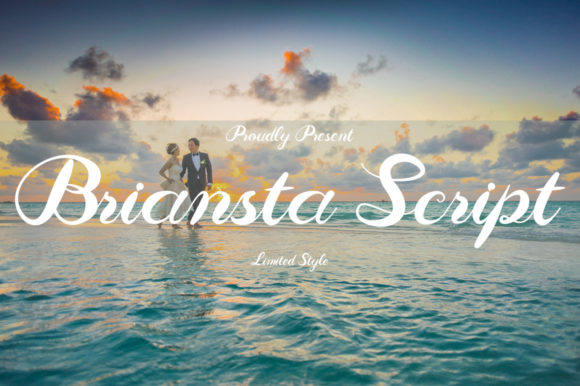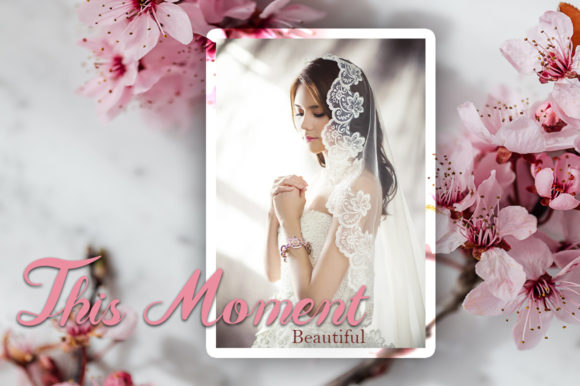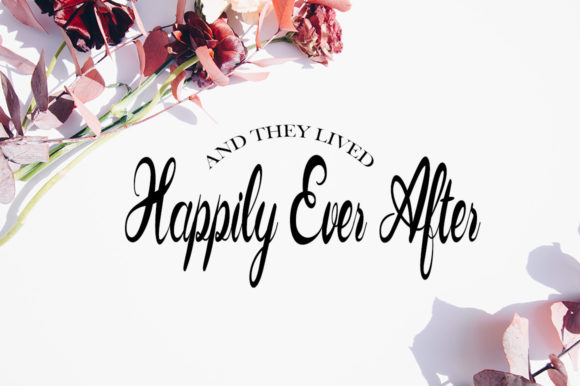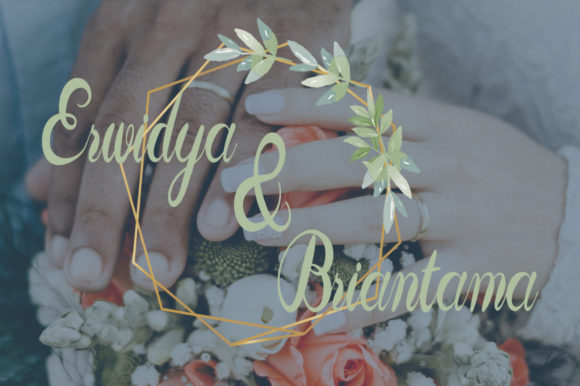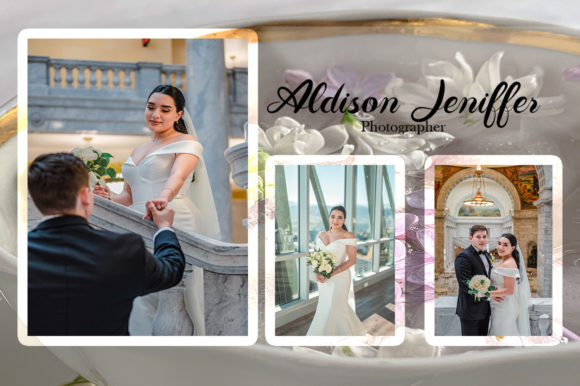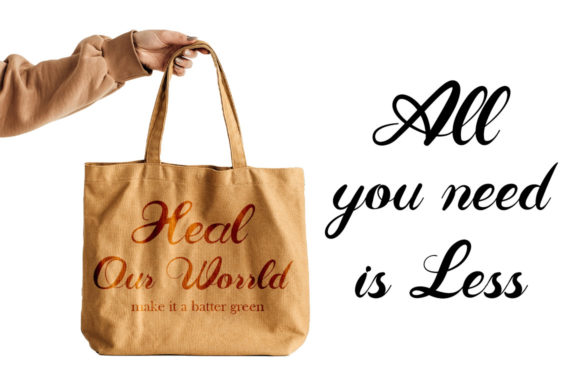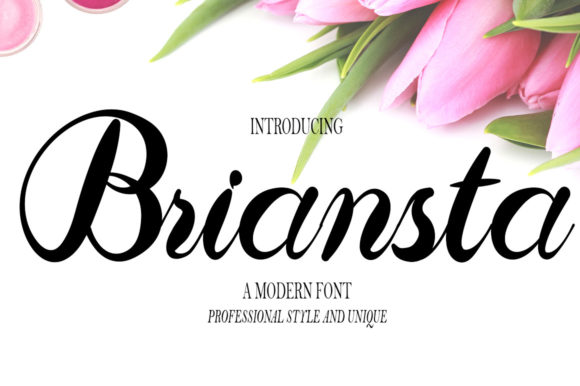
Briansta Font: The Ultimate Choice for Romantic and Luxurious Designs
Are you a designer or crafter looking for a font that can add a touch of romance and luxury to your projects? Look no further than Briansta Font! This beautiful, handwritten font is perfect for creating stunning designs that exude elegance and sophistication. In this article, we’ll take a closer look at Briansta Font, its features, and how you can use it to elevate your designs.
What is Briansta Font?
Briansta Font is a romantic and sweet handwritten font that is designed to add a spark of luxury to any design or project. Its unique and elegant typography makes it perfect for a wide range of applications, including invitation cards, wedding fonts, promotional fonts, and other projects that require distinctive typography.
Key Features of Briansta Font
Briansta Font has several key features that make it an excellent choice for designers and crafters. Some of its notable features include:
- Professionally Crafted Characters and Kerning: The characters and kerning in Briansta Font are professionally crafted, making it suitable for use in all aspects of design. The font’s kerning is carefully adjusted to ensure that the letters flow smoothly and consistently, creating a beautiful and harmonious look.
- Romantic and Sweet Handwritten Style: Briansta Font has a romantic and sweet handwritten style that is perfect for creating elegant and sophisticated designs. Its unique and flowing script makes it ideal for designs that require a personal touch.
- Versatile and Multi-Purpose: Briansta Font is a versatile font that can be used for a wide range of projects, including invitation cards, wedding fonts, promotional fonts, and other designs that require unique typography.
Benefits of Using Briansta Font
Using Briansta Font in your designs offers several benefits, including:
- Unique and Distinctive Typography: Briansta Font offers a unique and distinctive typography that can help your designs stand out from the crowd.
- Elegant and Sophisticated Look: The font’s elegant and sophisticated look makes it perfect for designs that require a touch of luxury and romance.
- Time-Saving: Briansta Font is a high-quality font that is ready to use, saving you time and effort in creating your designs from scratch.
Briansta Font is a beautiful and elegant handwritten font that is perfect for designers and crafters looking to add a touch of romance and luxury to their designs. With its professionally crafted characters and kerning, versatile and multi-purpose design, and easy-to-use format, Briansta Font is an excellent choice for a wide range of projects. Whether you’re creating invitation cards, wedding fonts, promotional fonts, or other designs, Briansta Font is sure to elevate your designs to the next level.
In conclusion, Briansta Font is a stunning handwritten font that can add a spark of luxury to any design or project. Its unique and elegant typography, versatile design, and easy-to-use format make it an excellent choice for designers and crafters. Try Briansta Font today and take your designs to new heights!